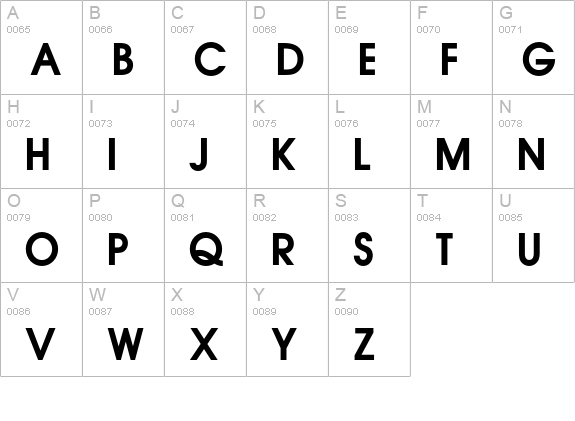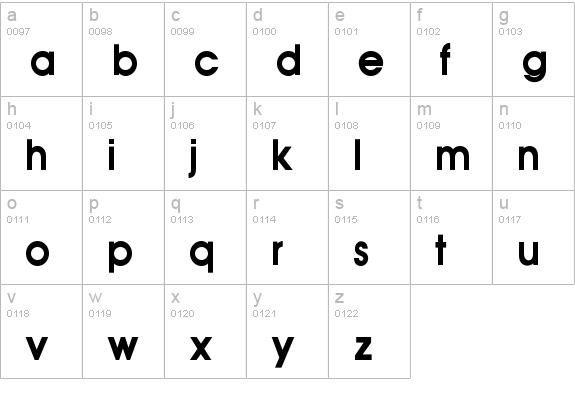
AuxinDemiBold is a modern and versatile typeface that exudes confidence and sophistication. Its bold and dynamic design makes it perfect for a wide range of projects, from branding to editorial design. The font features strong lines and a sleek aesthetic that commands attention and leaves a lasting impression. What sets AuxinDemiBold apart is not only its striking appearance but also the fact that it is completely free to download. That's right, you can access this high-quality font at no cost on FontsMarket.com. Whether you're a designer looking to elevate your work or a business in need of a standout font for your marketing materials, AuxinDemiBold is the perfect choice. Download it now and add a touch of modern elegance to your projects.